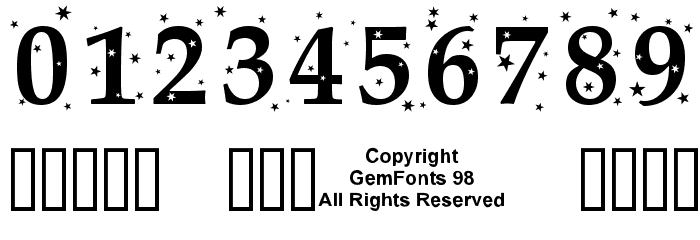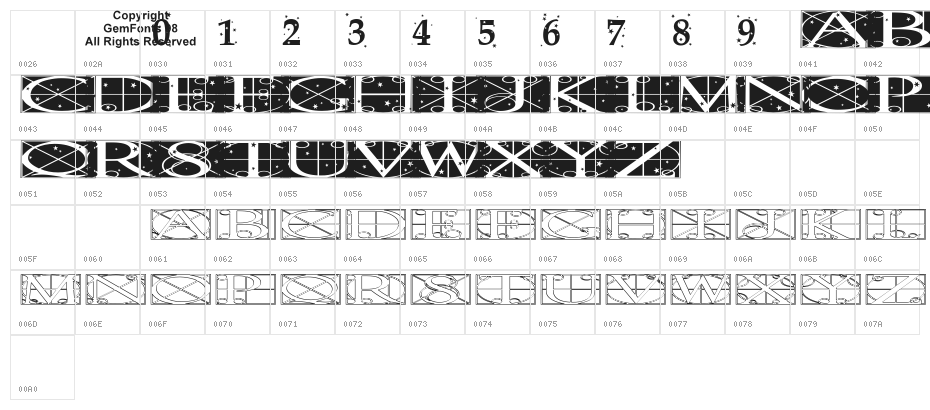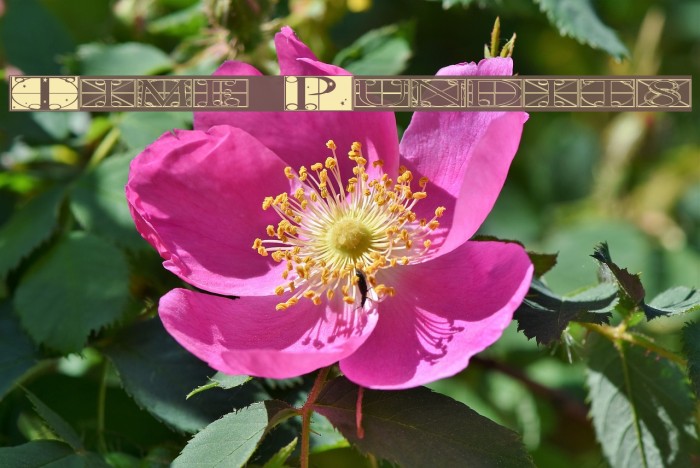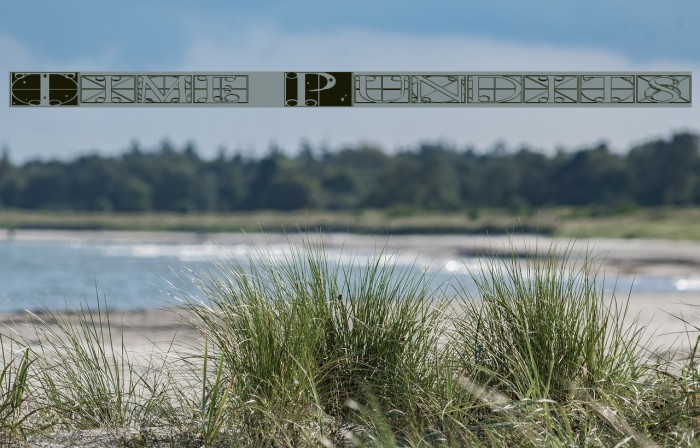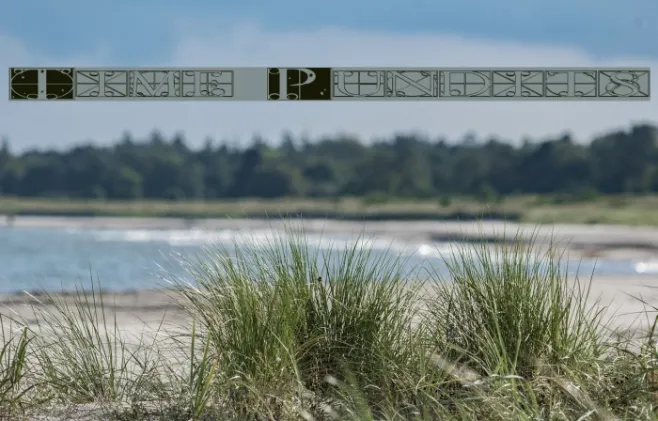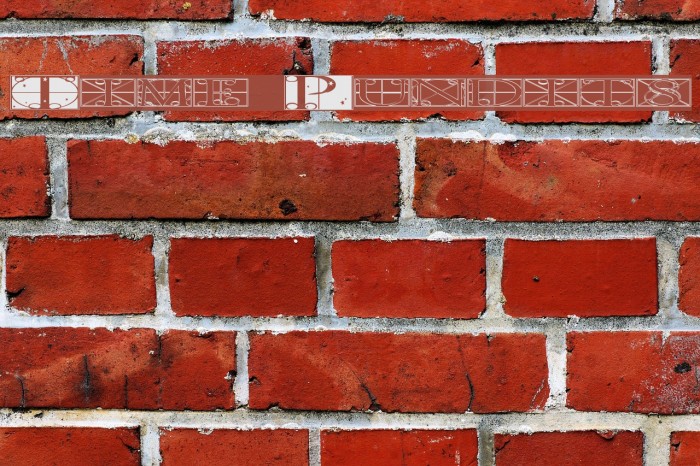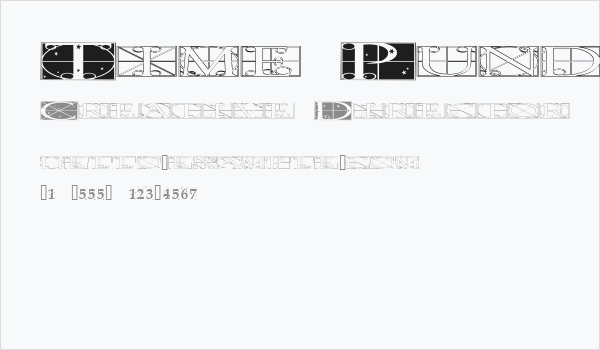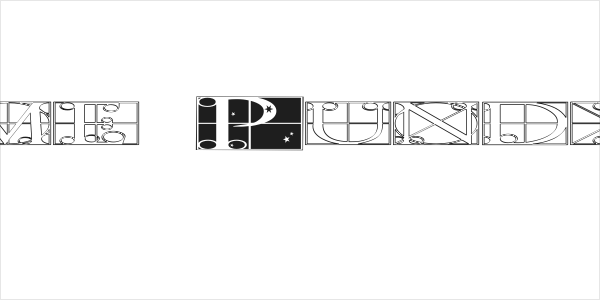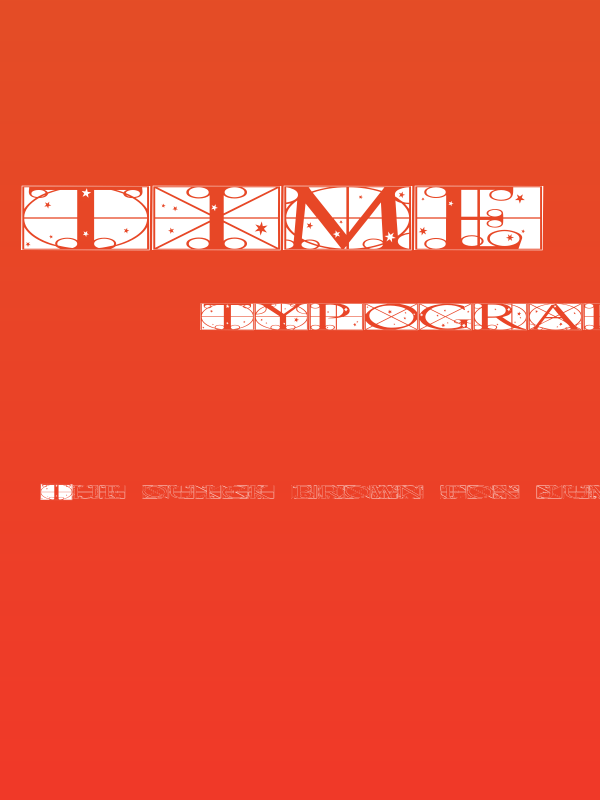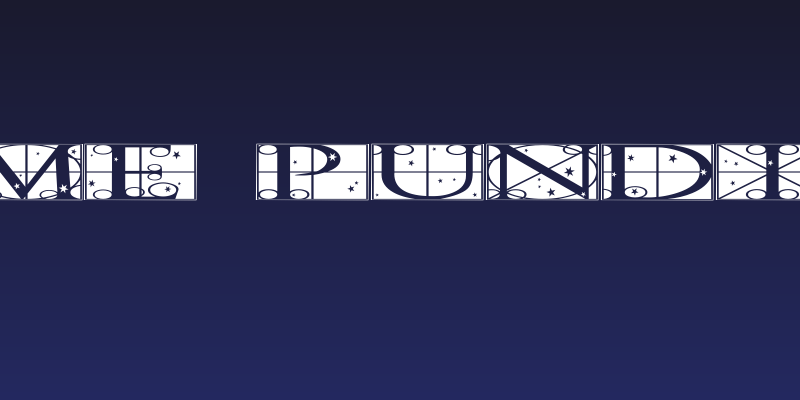
Time Pundits Font
Time Pundits Description
This font features an intricate and decorative design, with each character adorned with elaborate patterns and embellishments. The uppercase letters are bold and striking, with a high level of detail that gives them a unique, ornamental appearance. The lowercase letters maintain the decorative theme, though they are slightly less bold, offering a harmonious balance. The numbers are bold and embellished with star-like decorations, adding a whimsical touch. Special characters are similarly styled, ensuring a cohesive look across all elements. This font is ideal for projects that require a touch of elegance and creativity, making it suitable for artistic and decorative purposes.
| Use Case | Headlines, Artistic projects, Decorative purposes |
| Proposed Projects | Ideal for invitations, artistic posters, decorative headings, and creative branding projects. |